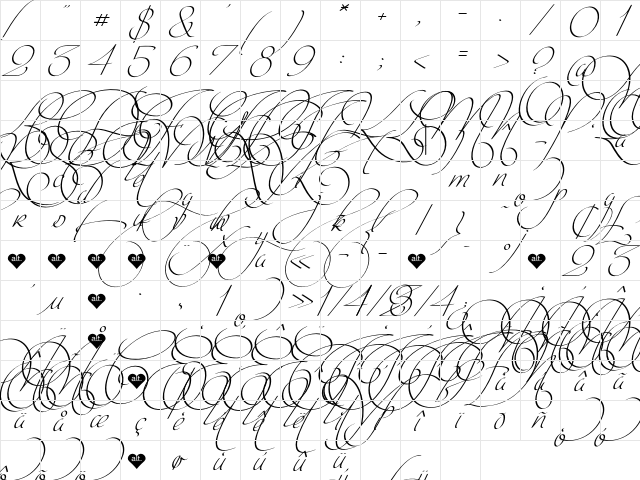
Intima Script Three Regular
| Foundry | Maximiliano R. Sproviero |
| Designer | Maximiliano R. Sproviero |
Design Context for Intima Script Three Typeface
Intima Script Three flows with the natural rhythm of handwritten lettering, making it ideal for designs that call for warmth and personal expression.
Font Pairing: Combine Intima Script Three with a simple geometric sans for maximum contrast — the tension between flowing curves and clean structure is a classic typographic pairing.
Pro Tip: Use Intima Script Three for short runs of text — names, titles, or taglines. Extended body copy in script faces tires the eye quickly.